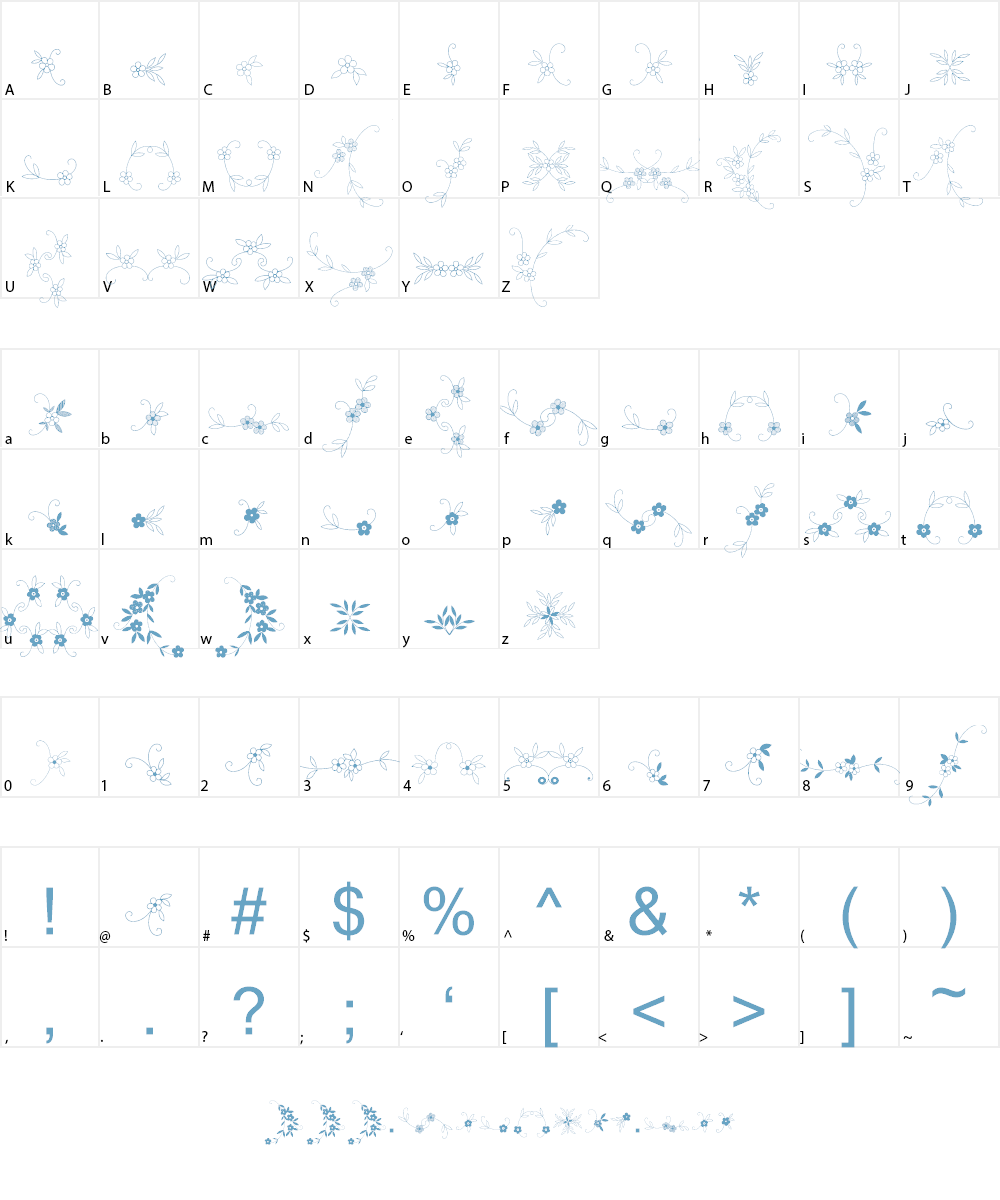
Menina Graciosa Ornaments Two Free, by Intellecta Design
THE ORIGINAL FONT
Meninas are the new comprehensive collection of innovative craft alphabets and ornaments researched in rare cross-stitch booklets from 1850 to 1930. This alphabet and ornaments series was entirely designed by hand, without use of auto-tracing, by Iza W, from Intellecta Design. Keep your eyes wide-open, because we will launch more amazing alphabets in this collection. “Menina” means “Girl” in Portuguese. Menina Graciosa is a Graceful Girl. See too her sister fonts: Menina Formosa, Menina Carinhosa, Menina Poderosa Ornaments, Menina Espinhosa.